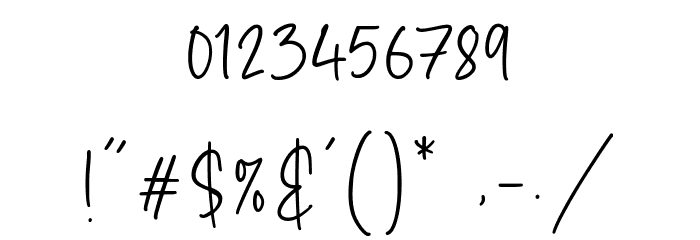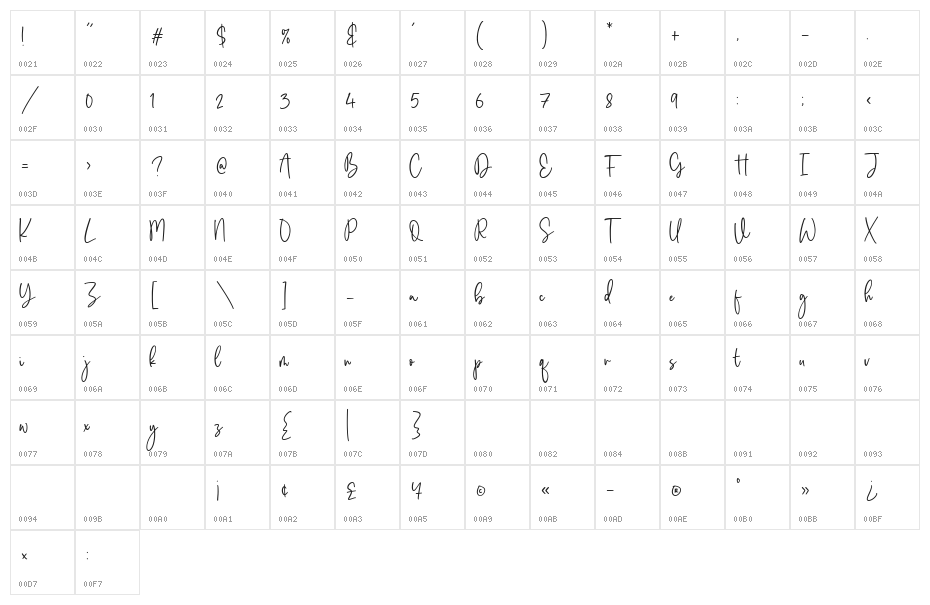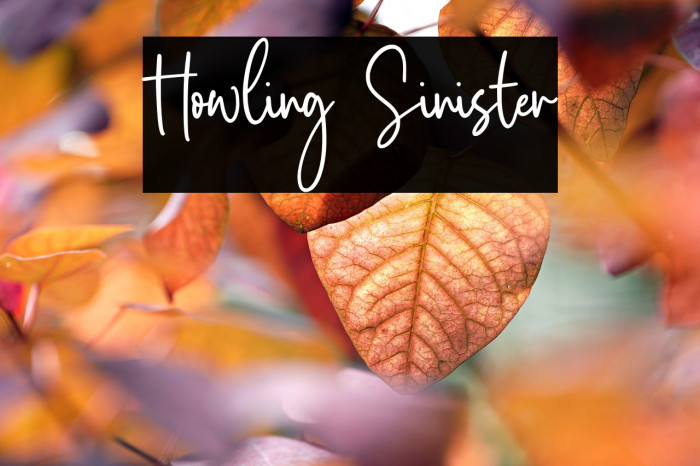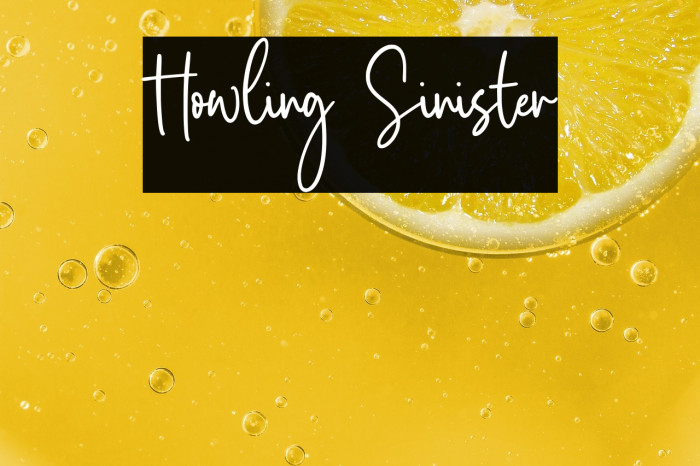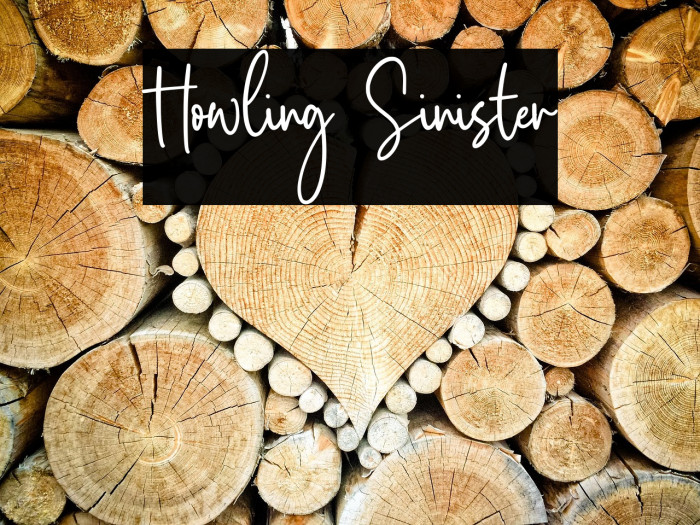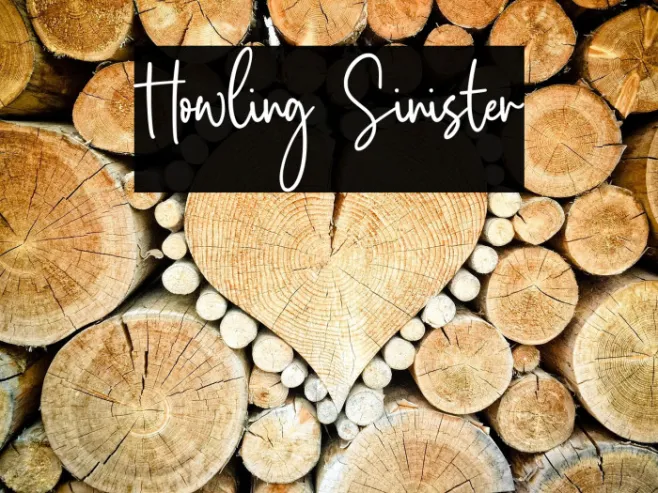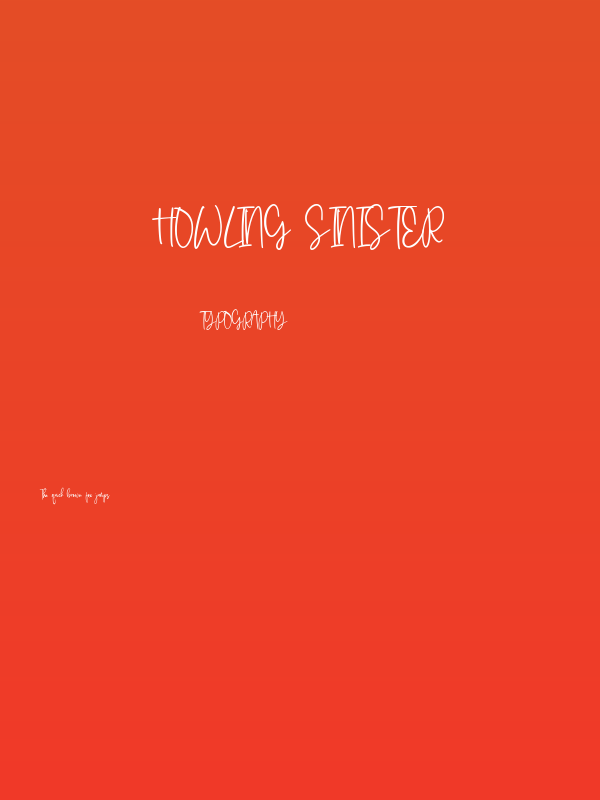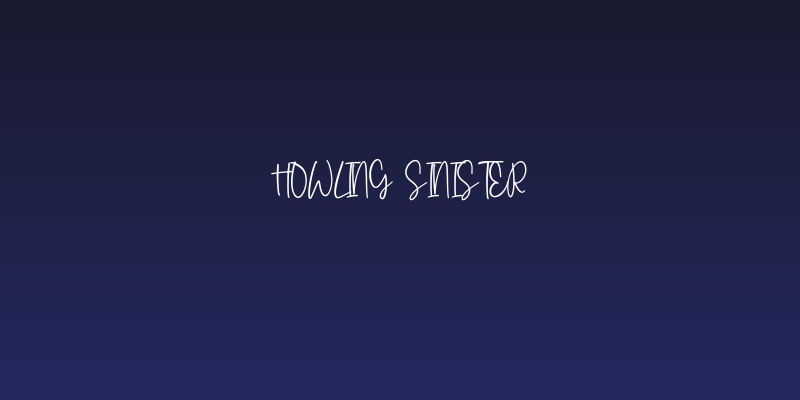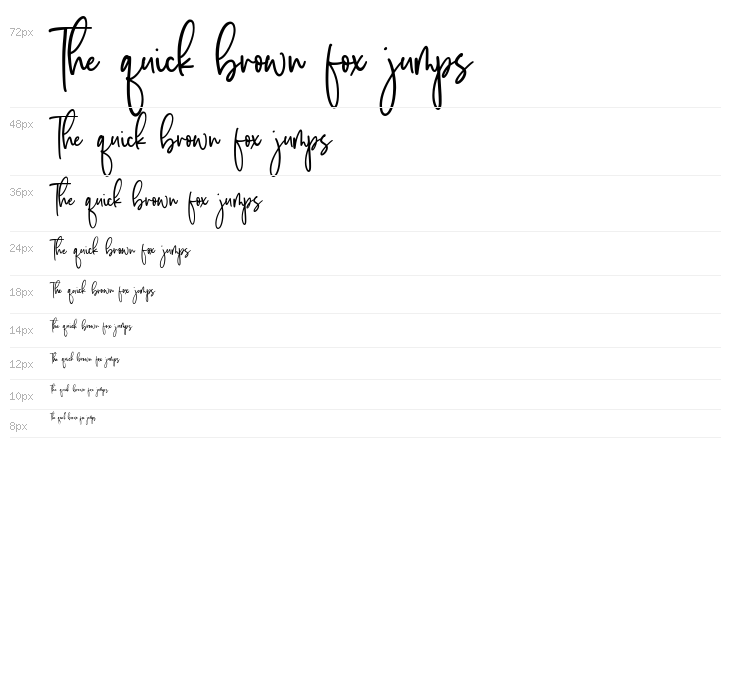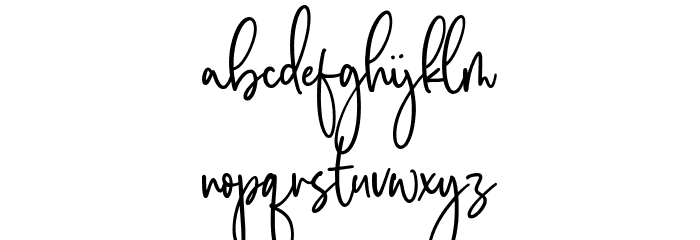
Howling Sinister Font
Howling Sinister Description
This font features a playful, handwritten style with a casual and whimsical appearance. The letters are characterized by their loose, flowing strokes and irregular shapes, giving it a personal and informal feel. The uppercase letters are tall and narrow, while the lowercase letters maintain a consistent height, contributing to a cohesive look. The numbers and special characters follow the same playful style, making them blend seamlessly with the alphabet. This font's unique charm lies in its imperfect lines and varying stroke widths, which add to its hand-drawn aesthetic.
| Overall Style | Casual, Whimsical, Playful |
| Proposed Projects | Ideal for greeting cards, invitations, personal branding, and creative projects that require a personal touch. |